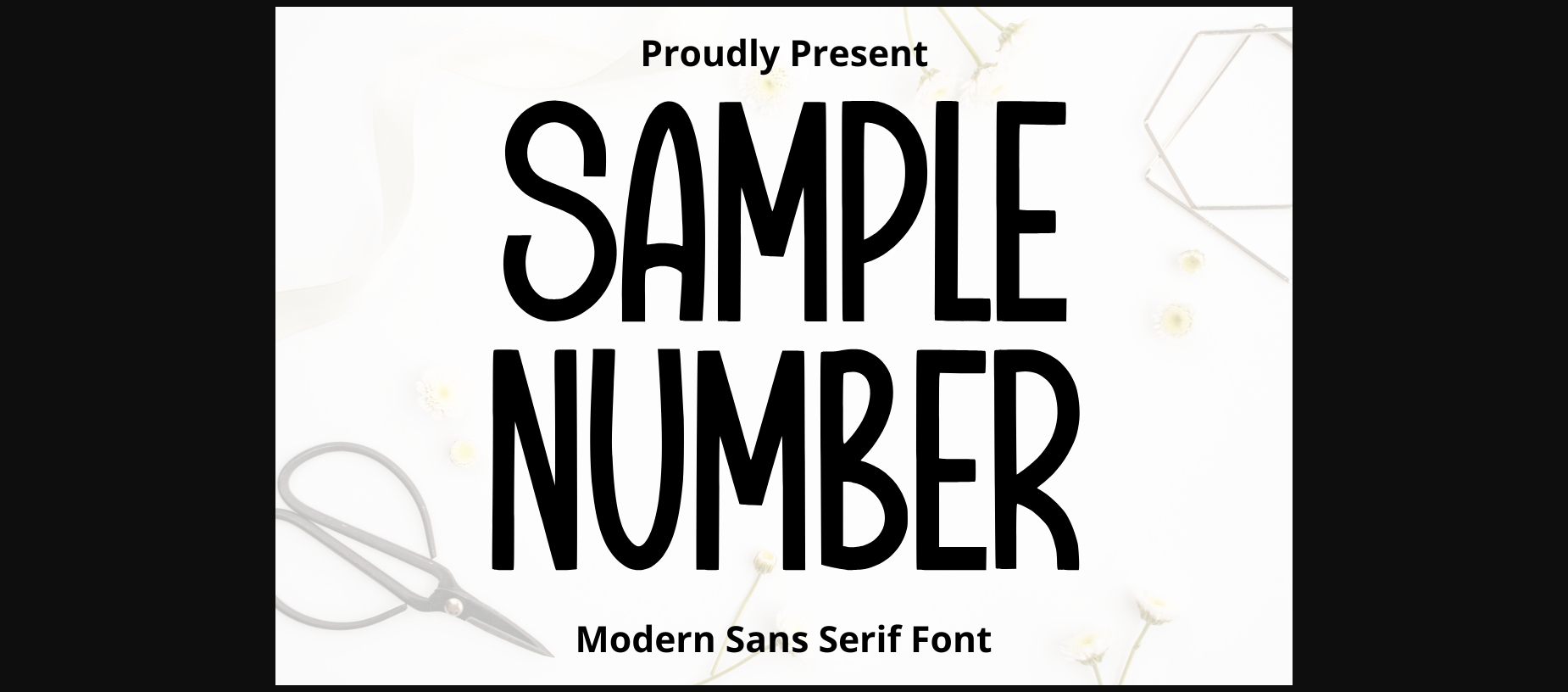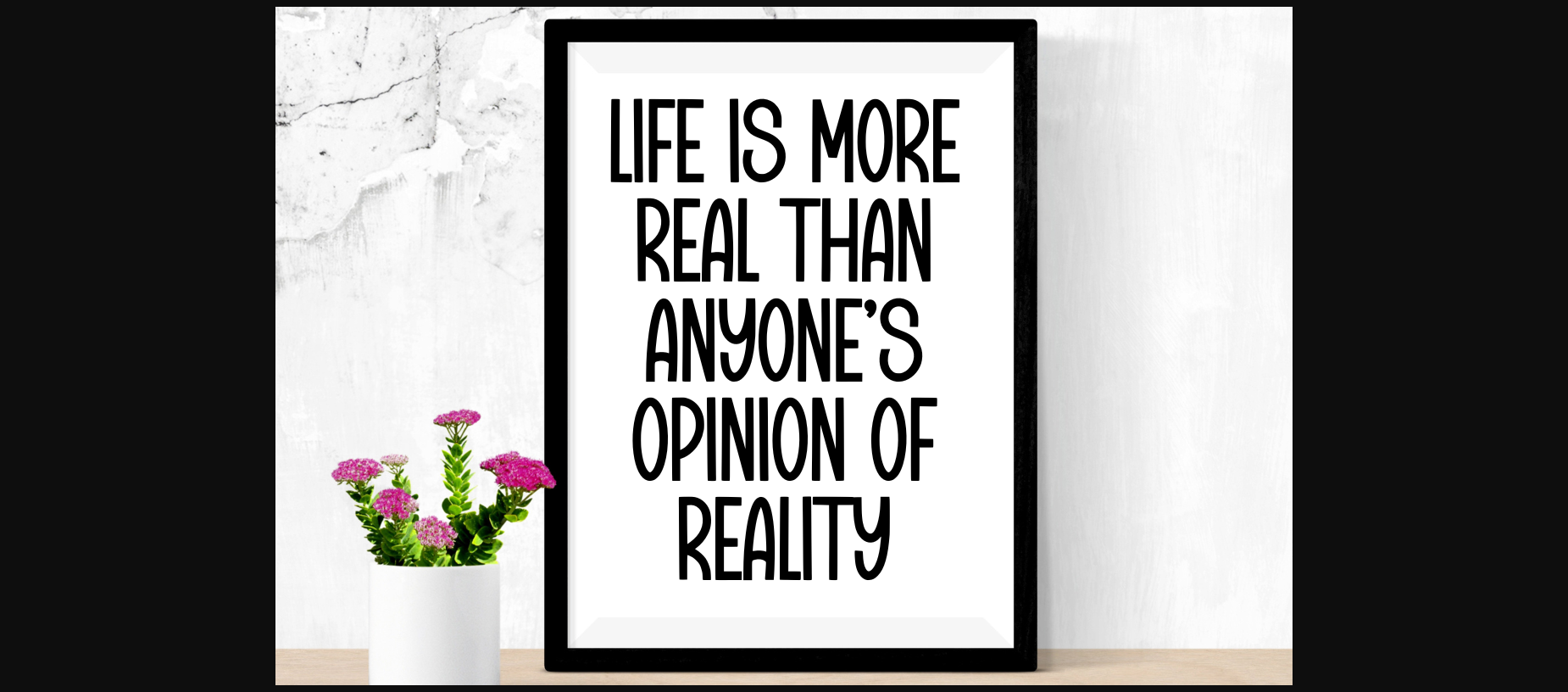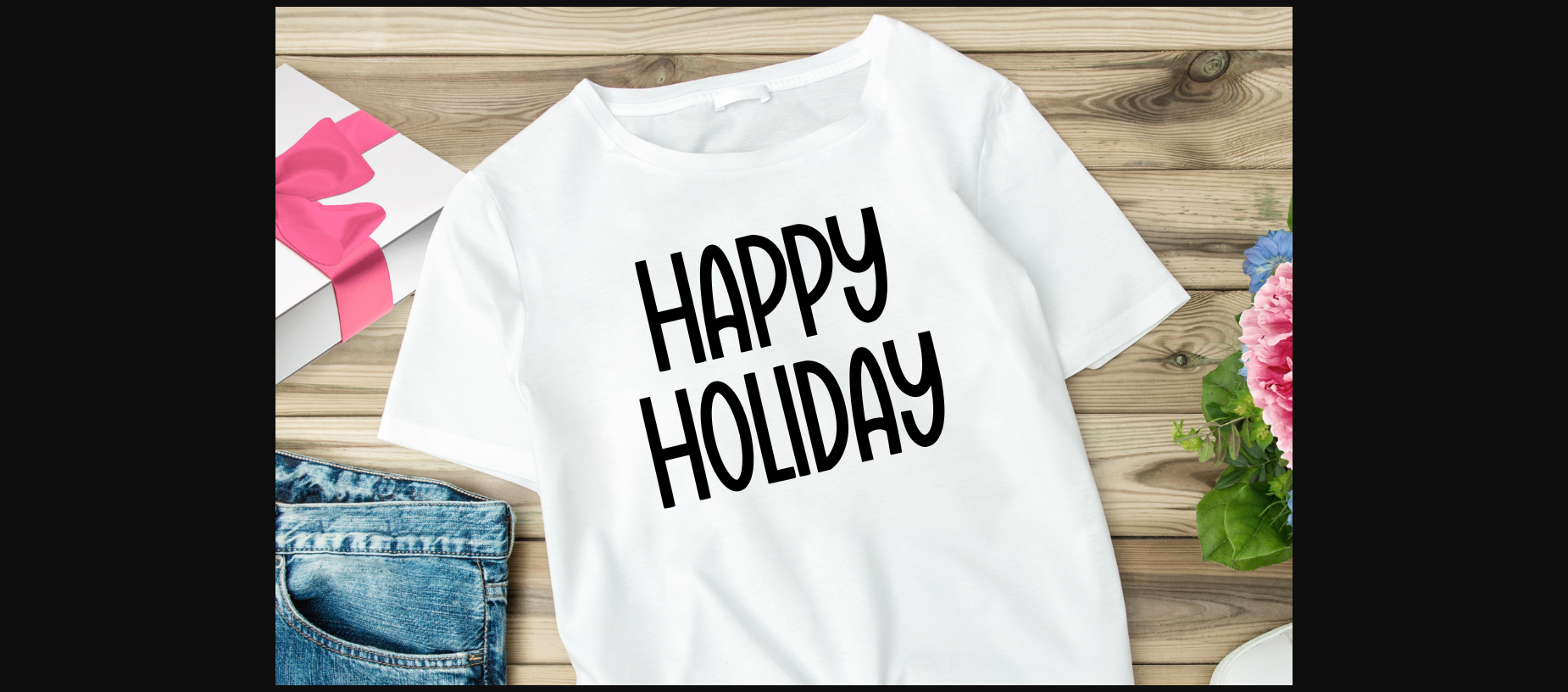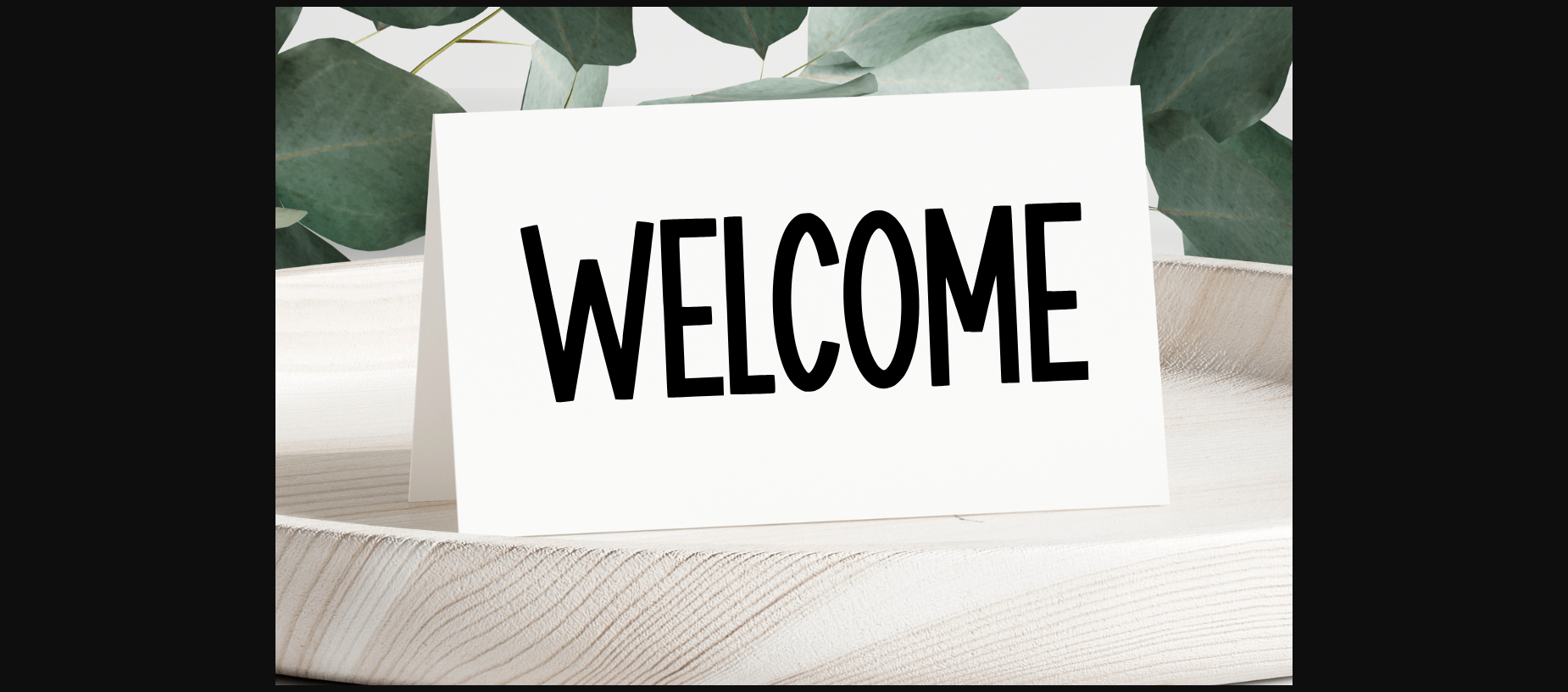
Sample Number is a modern sans-serif font that adds a sprinkle of fun to any design. With its rounded edges and playful letterforms, it exudes a sense of whimsy and versatility. Ideal for branding, packaging, posters, and anything that calls for a touch of cheerfulness and creativity.